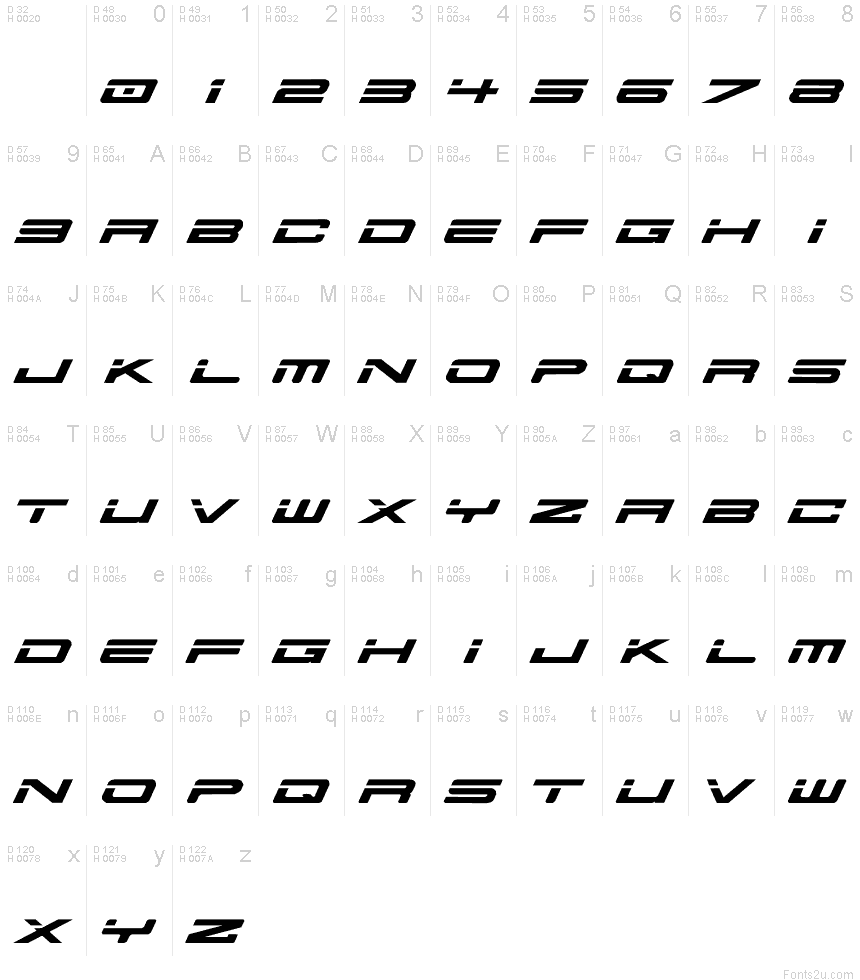
AusPROBE
AusPROBE font by Bob Crockford of AusProbe is a free futuristic display typeface with a strong, forward-thrusting stance. The letters are stretched and aggressively slanted, with smooth, aerodynamic curves and hard-edged cuts that feel like they’ve been carved by wind at high speed. Those stacked horizontal bars and streamlined shapes give every word a sense of motion, as if your text is already halfway down the racetrack or launching off a runway.
Using AusPROBE, you get instant energy for sci‑fi titles, esports branding, racing graphics, tech logos, posters, and bold merch. The tight rhythm and wide forms shine on big headlines where you want a fast, mechanical vibe to hit at a glance. This free font pairs well with a clean geometric sans for body copy—set AusPROBE large and let a neutral companion handle the small print.
This font created by AusProbe [Bob Crockford] in July 2000 - Enjoy!